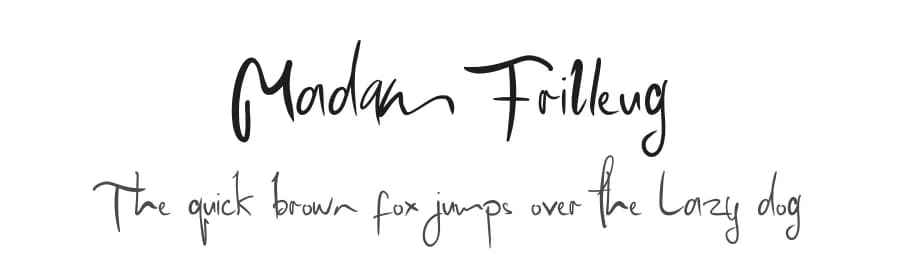
About Madam Frilleug Font
Madam Frilleug is a script & handwritten font designed by Ahargun C Design. It includes 173 glyphs, a regular weight, TTF (TrueType) format, and 200 languages. Madam Frilleug is free to download; check the license details on this page before commercial use. Script & handwritten fonts like Madam Frilleug work best for wedding invitations, greeting cards, signatures, and elegant branding.
Madam Frilleug Font is a script font that shines as a display or heading face. Pair it with a clean sans-serif or serif font for body text β the contrast creates a clear hierarchy while the two styles stay balanced and easy to read.
Madam Frilleug Font